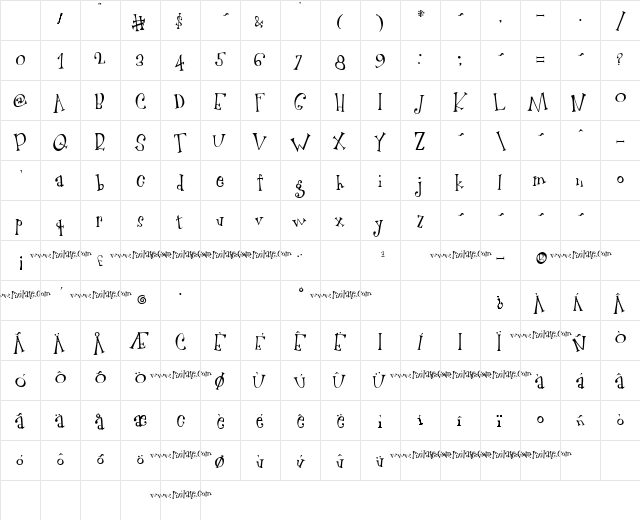
Complete Patchanka Regular glyph index. Displaying only characters natively supported by Patchanka Regular font.
Patchanka is a composed and adaptable typeface that performs quietly and consistently across a wide range of design contexts.